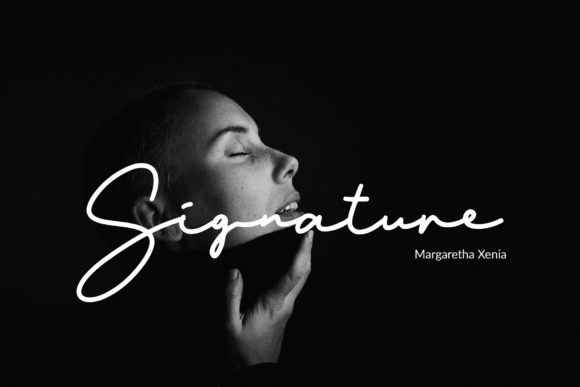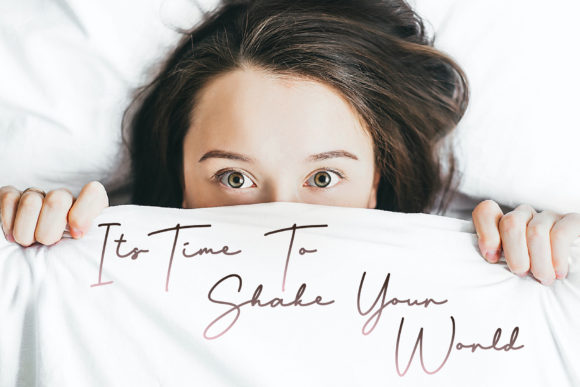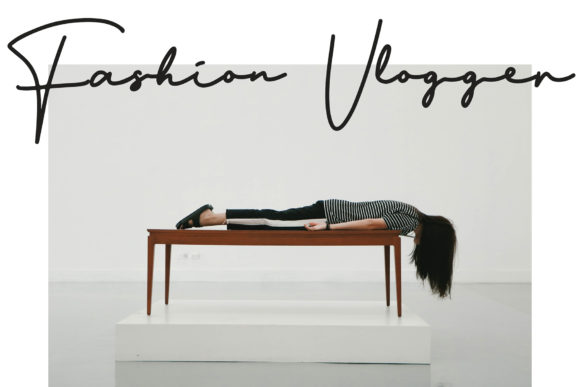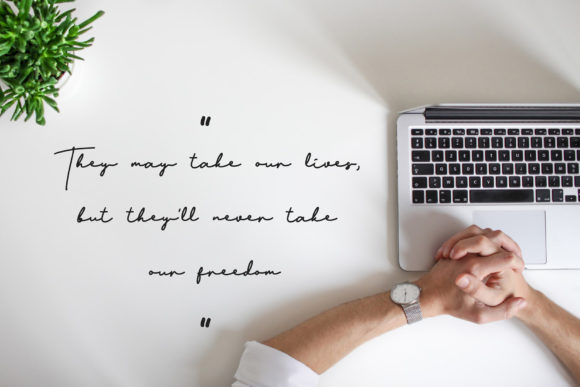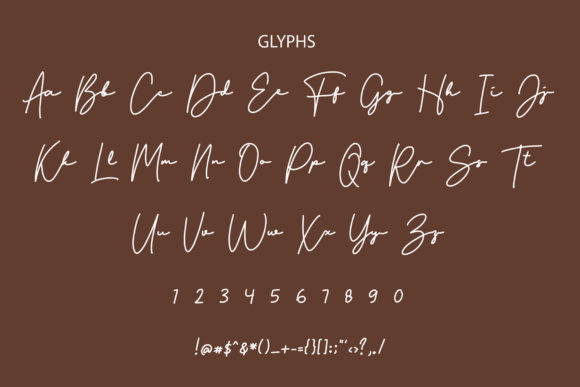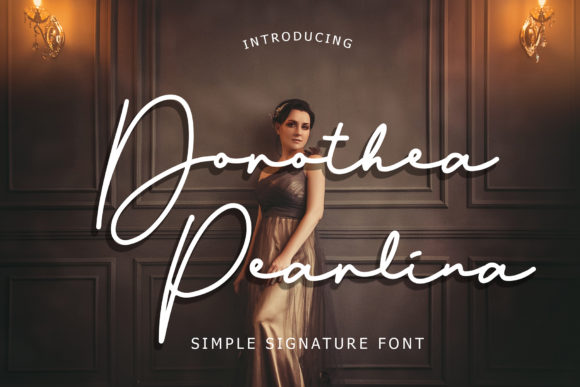
Dorothea Pearlina Font: Elevate Your Designs with Elegance and Sophistication
Are you a designer, crafty DIY enthusiast, or social media influencer looking for a font that can add a touch of elegance and sophistication to your projects? Look no further than the stunning Dorothea Pearlina font. This gorgeous handwritten script features beautiful swashes and ligatures, making it incredibly versatile and perfect for a wide range of creative applications.
The Beauty of Dorothea Pearlina
Dorothea Pearlina is a true masterpiece of font design. With its flowing, cursive strokes and intricate details, this font is sure to capture the attention of your audience and leave a lasting impression. The beautiful swashes and ligatures add a touch of whimsy and flair, making it perfect for use in a variety of design projects, from Instagram graphics and calligraphy scripts to DIY crafts and more.
What Makes Dorothea Pearlina So Versatile?
One of the things that sets Dorothea Pearlina apart from other fonts is its incredible versatility. Whether you’re looking to create a stunning Instagram graphic, a beautiful piece of calligraphy, or a unique DIY project, this font is sure to deliver. The elegant, cursive strokes and gorgeous swashes make it perfect for use in:
- Instagram graphics and social media posts
- Calligraphy scripts and lettering projects
- DIY crafts, such as handmade cards and gift tags
- Wedding and event invitations
Why Choose Dorothea Pearlina?
With so many fonts to choose from, why should you choose Dorothea Pearlina for your next design project? Here are just a few reasons why this font stands out from the rest:
- Unique and eye-catching design: The beautiful swashes and ligatures in Dorothea Pearlina make it a true standout in any design project.
- Highly versatile: This font can be used in a wide range of creative applications, from Instagram graphics to DIY crafts.
- Elegant and sophisticated: The elegant, cursive strokes in Dorothea Pearlina add a touch of sophistication and elegance to any design project.
Tips for Using Dorothea Pearlina in Your Designs
Now that you know a little bit more about the beautiful Dorothea Pearlina font, here are a few tips for using it in your designs:
- Experiment with different sizes and colors: Don’t be afraid to try out different sizes and colors with Dorothea Pearlina. This font looks great in a variety of sizes and colors, from bold and bright to elegant and subtle.
- Use it with other fonts: Dorothea Pearlina pairs well with a variety of other fonts, so don’t be afraid to experiment with different font combinations.
- Add your own personal touch: One of the best things about Dorothea Pearlina is its versatility. Don’t be afraid to add your own personal touch to your designs, whether it’s through illustrations, graphics, or other creative elements.